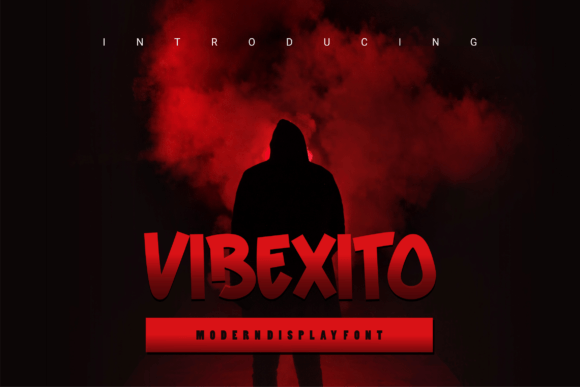
Welcome to the enthralling world of Vibexito, a display font masterpiece that will ignite your creative spark and leave an indelible mark on your designs.
Imagine a font that exudes modernity, boldness, and authenticity, a font that will transform your words into captivating visuals. Look no further than Vibexito, the font that will elevate your designs to new heights.
Crafted by the skilled hands of kalingga.albert, Vibexito is a versatile font that adapts effortlessly to a myriad of creative endeavors. Whether you're crafting a captivating brand identity, designing a sleek logo, or unleashing your creativity in T-shirt printing, Vibexito is the font that will make your vision a reality.
For those who dare to venture into the realm of digital gaming and esports, Vibexito is your weapon of choice. Its sharp edges and dynamic curves will empower your team with a visual identity that commands attention and inspires awe.
But Vibexito is more than just a font; it's an invitation to let your imagination soar. Add it to your creative toolkit and witness the transformation as your designs come alive with a vibrancy and energy that will captivate your audience.
Don't settle for ordinary fonts. Choose Vibexito, the font that will ignite your creativity and unleash the full potential of your designs. Embrace the power of Vibexito and let your imagination run wild!